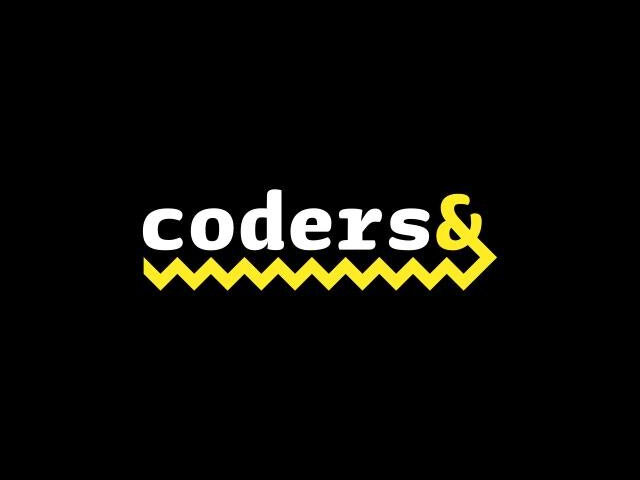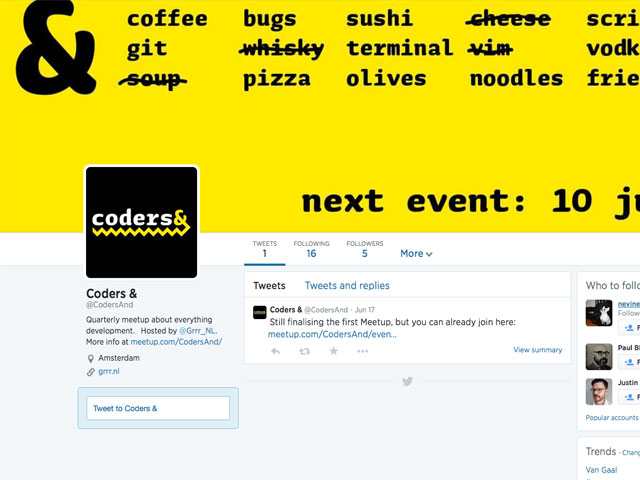
A couple of times a year the people from @Grrr_NL host a meetup for developers around Amsterdam, where the front-end can finally see the back-end and vice versa. Programmers who love visual culture and designers who love programming take a monospaced font with flair of course.
Sauna_Mono